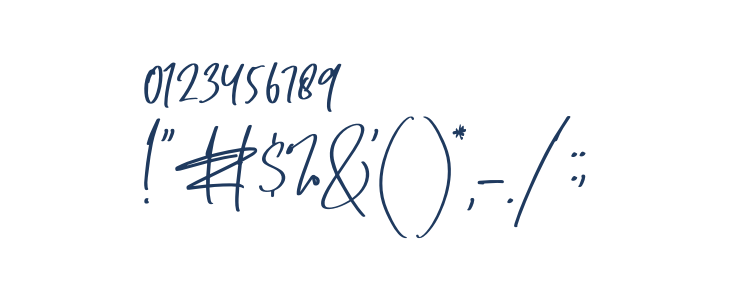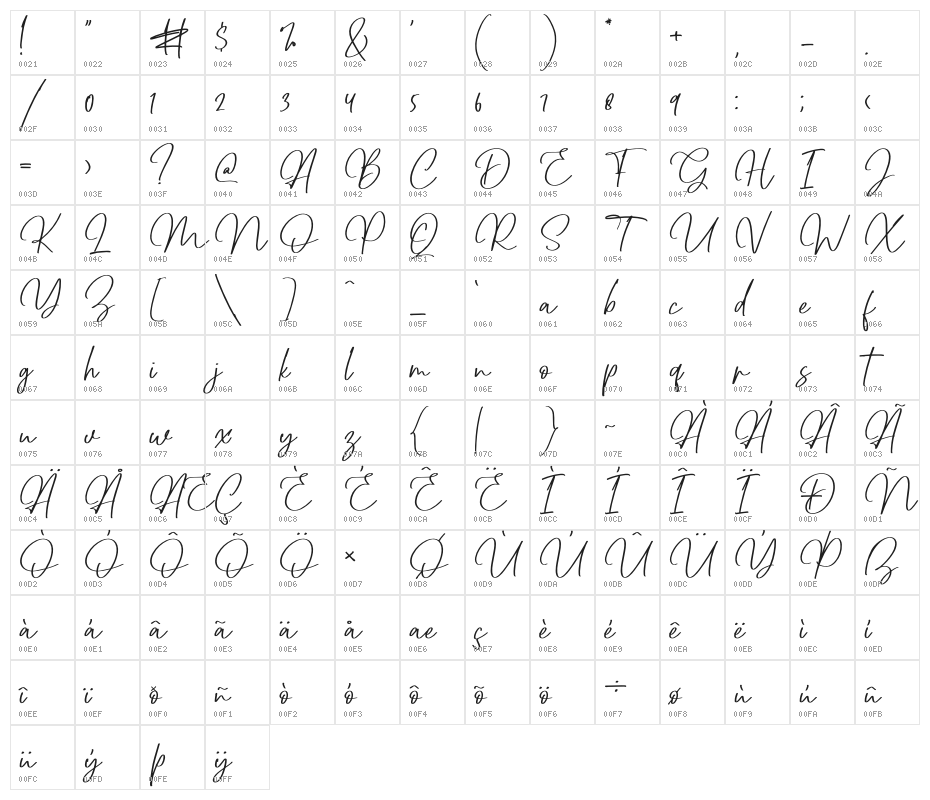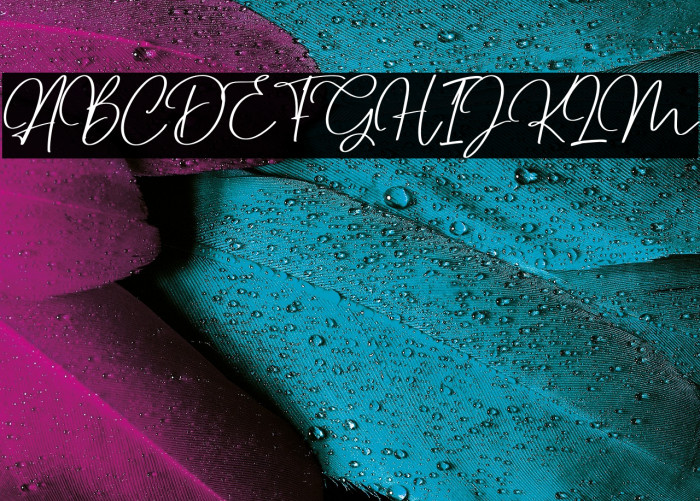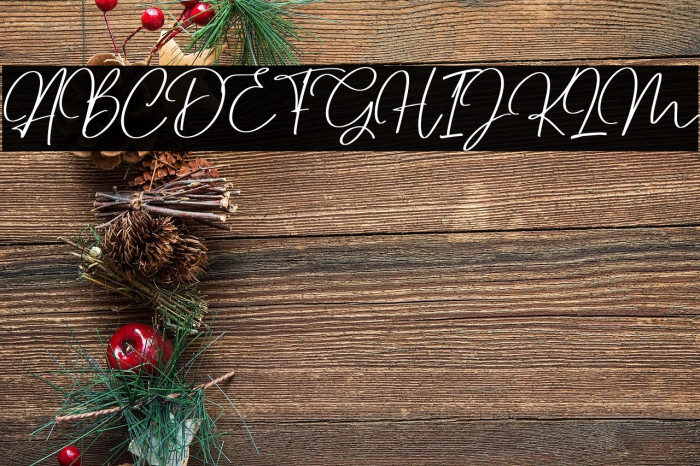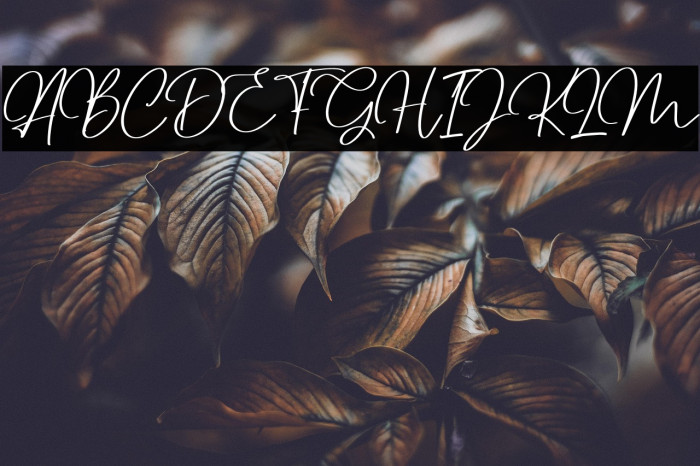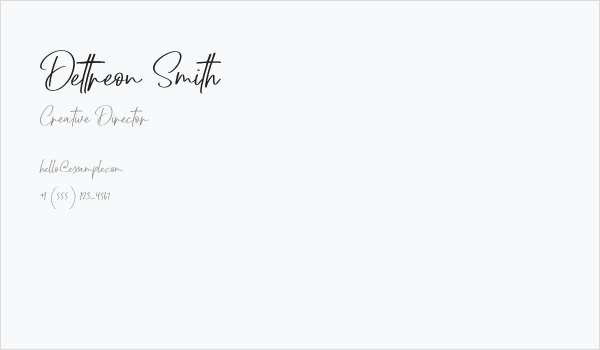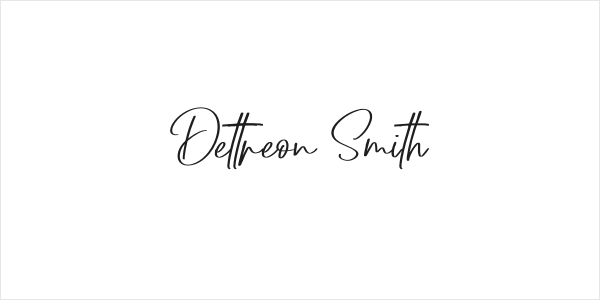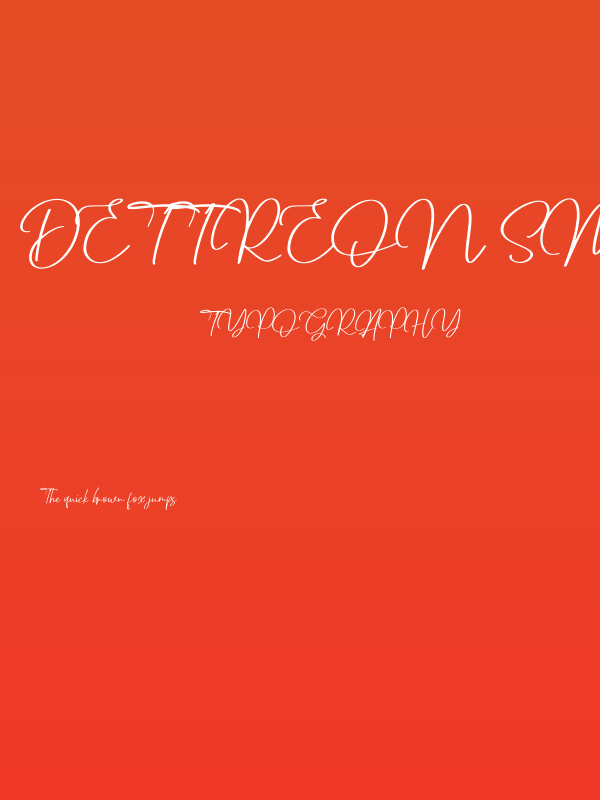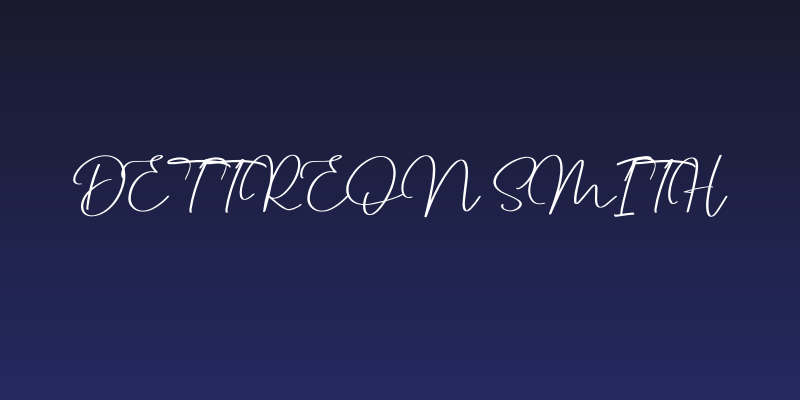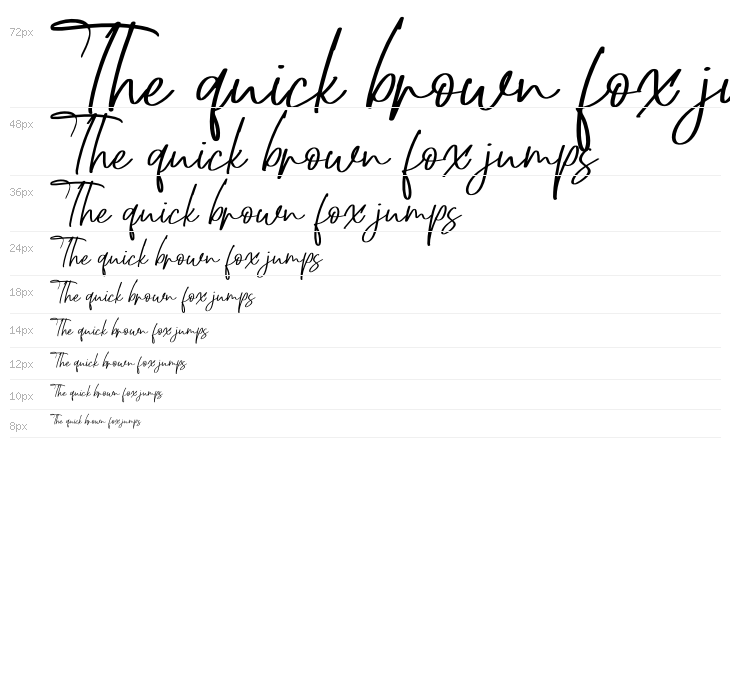
Dettreon Smith Font
Dettreon Smith Description
This font exhibits a flowing, cursive style that mimics natural handwriting with a touch of elegance. The uppercase letters are gracefully connected, while the lowercase letters maintain a consistent, fluid motion. The strokes vary in thickness, adding a dynamic and lively feel to the text. Numbers and special characters are designed to complement the overall script style, ensuring a cohesive look across all characters. The font's organic appearance makes it suitable for projects that require a personal or artistic touch.